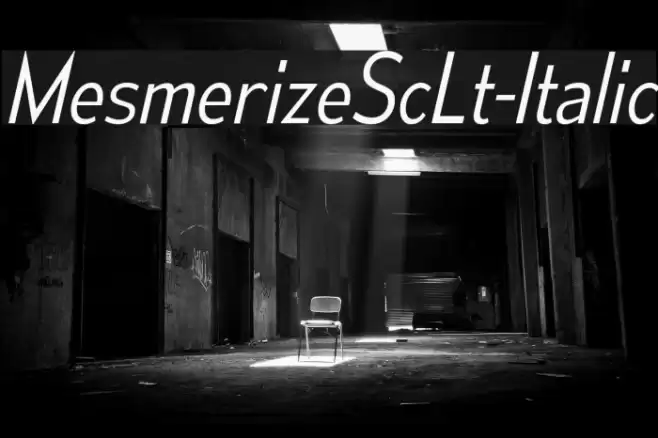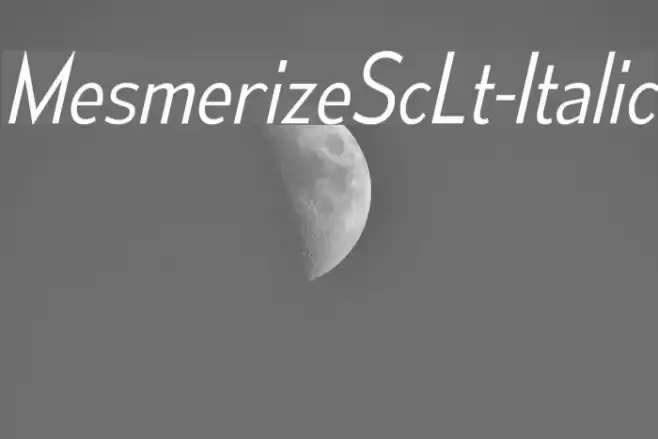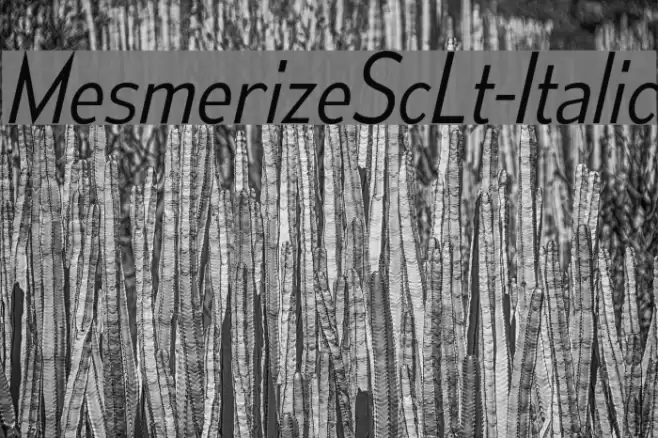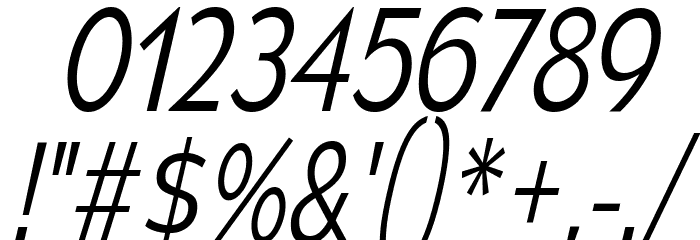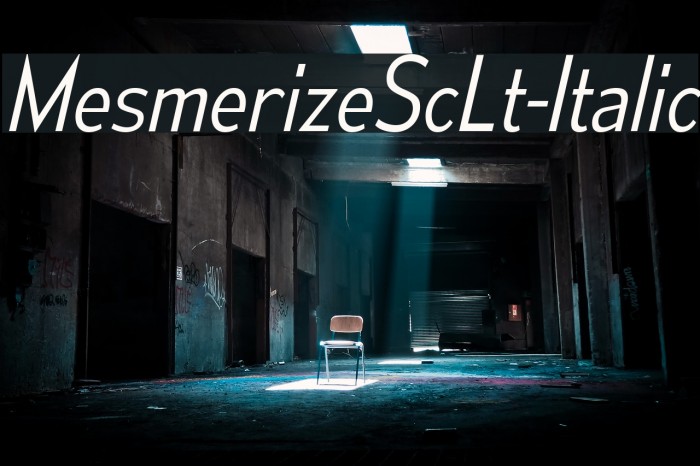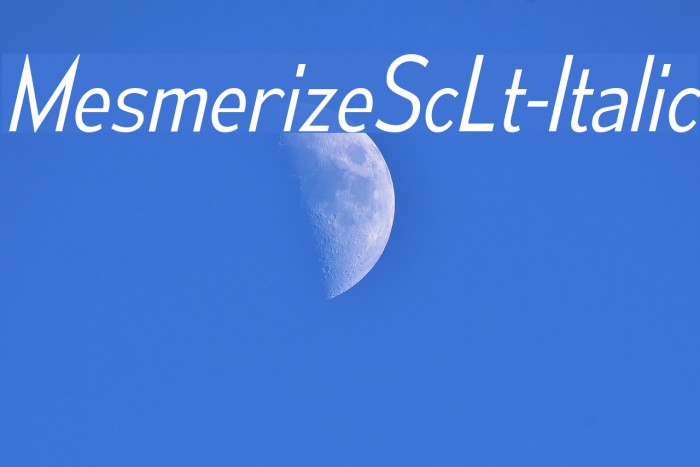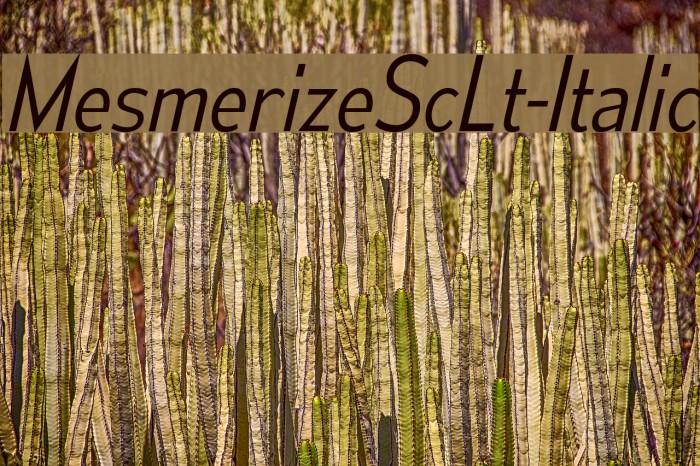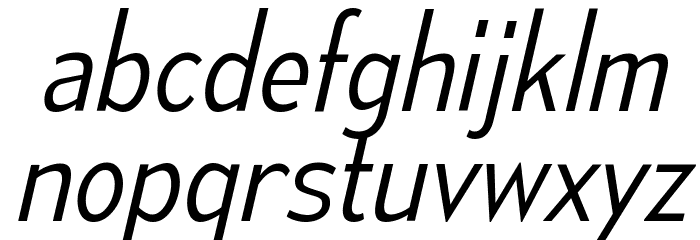
MesmerizeScLt-Italic Font
MesmerizeScLt-Italic Description
This font features a sleek and modern design with a slight italic slant, giving it a dynamic and forward-moving appearance. The characters are elegantly crafted with a consistent stroke width, contributing to a clean and sophisticated look. The uppercase and lowercase letters maintain a harmonious balance, while the numerals are clear and easily distinguishable. Special characters are well-integrated, ensuring versatility across various applications. The overall style is contemporary, making it suitable for a wide range of design projects.
A sleek, modern italic font with consistent stroke width and a dynamic appearance from Uncategorized fonts.
- Proposed Projects: Ideal for branding, advertising, editorial design, and digital interfaces where a modern and sophisticated look is desired.